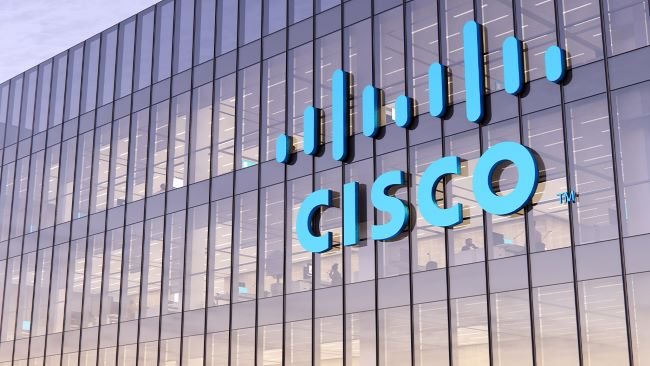
Cisco font quietly underpins a brand that underpins the internet itself — the infrastructure of global communication run by a company whose typography needs to inspire the same confidence as the hardware that carries the world’s data. The logo typeface draws on a customized variant of DIN, the German engineering-standard sans-serif that has been communicating technical precision and institutional reliability since the 1930s, its clean, unambiguous letterforms projecting exactly the kind of structured authority that enterprise networking demands. The freely available Cisco Futura Bold captures the geometric, no-nonsense weight of the brand’s typographic identity for design exploration and reference.